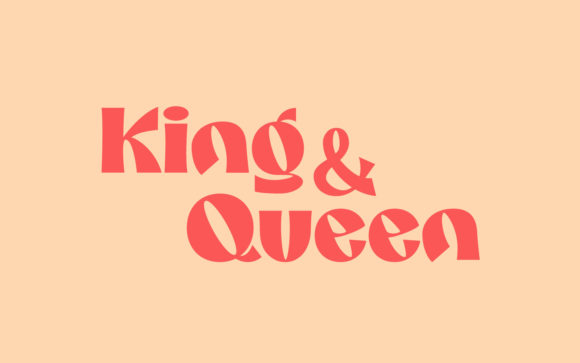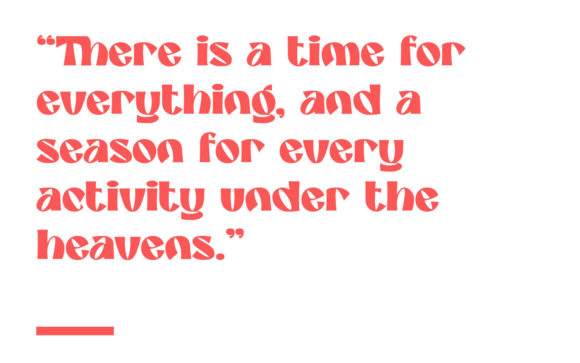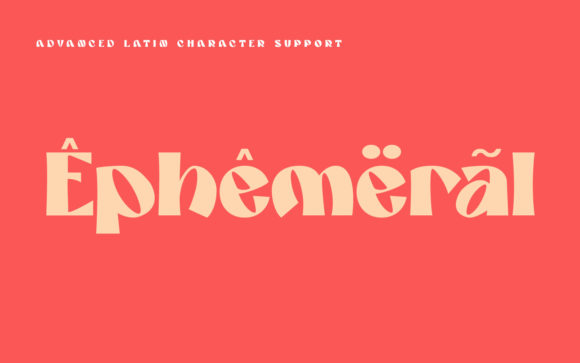
Introduction to JJ Amos Font
JJ Amos is a bold and modern display font.
It is great for logos, quotes, and any short texts It has a unique personality as it looks elegant yet bold and playful at the same time.
Key Features of JJ Amos Font